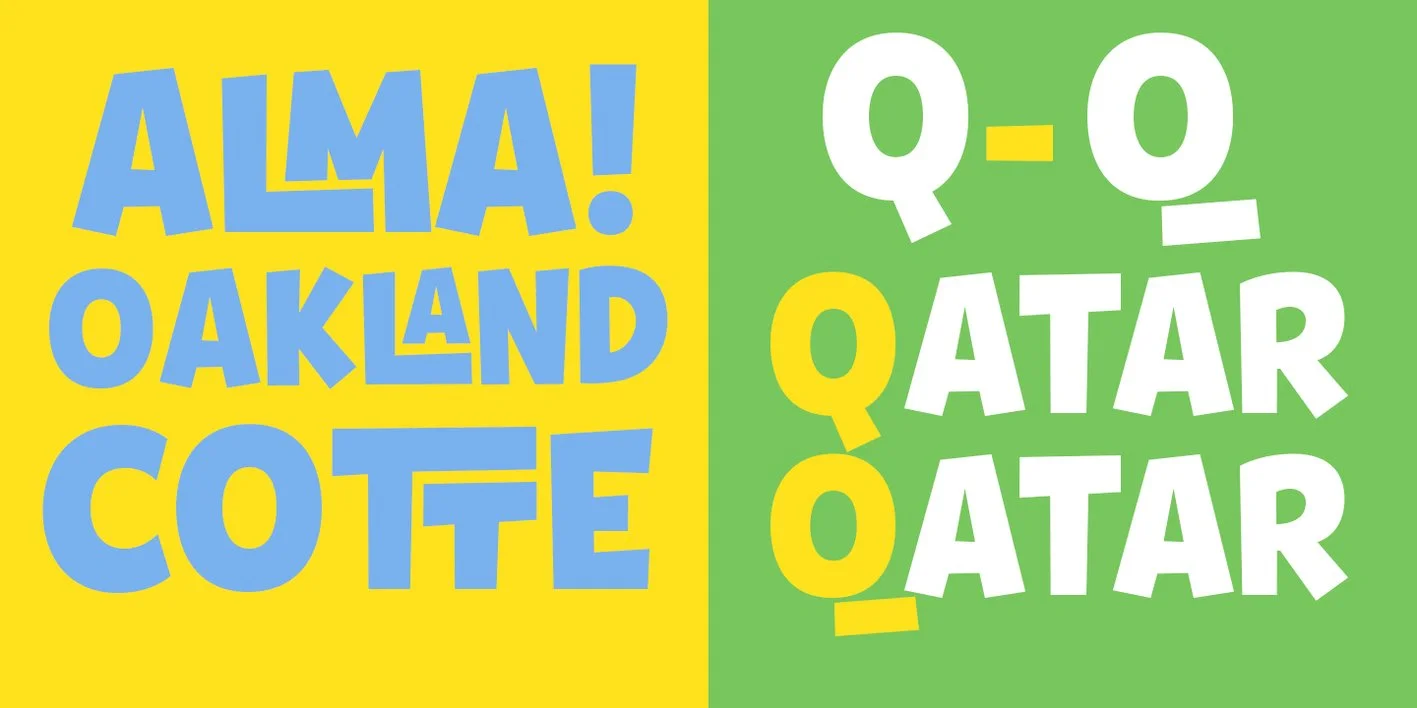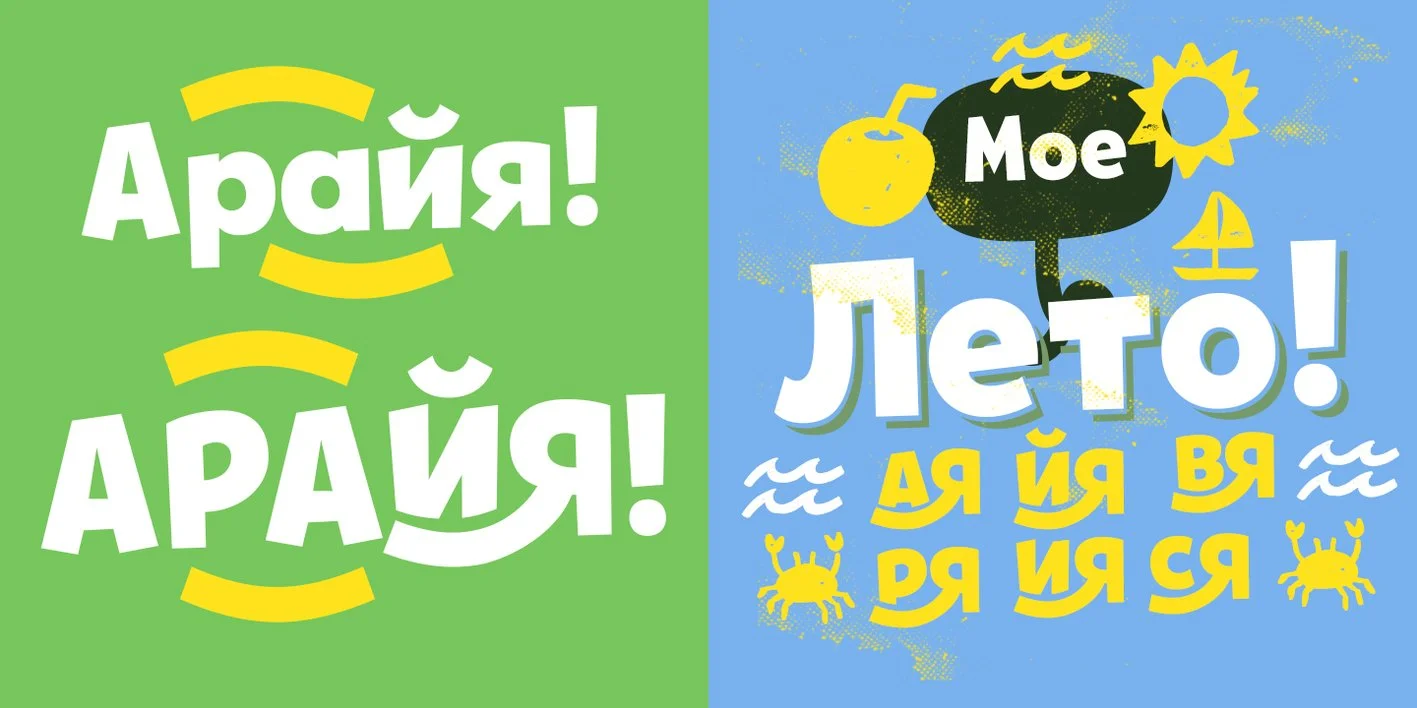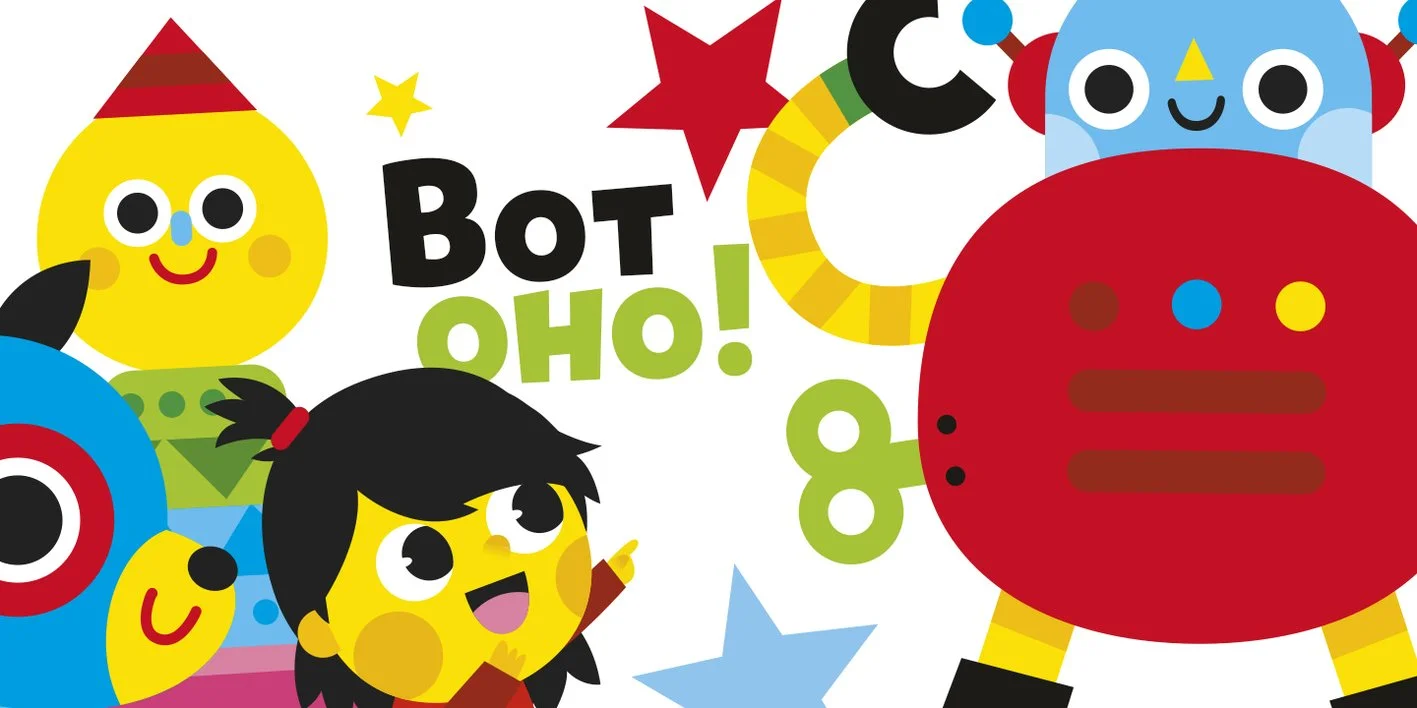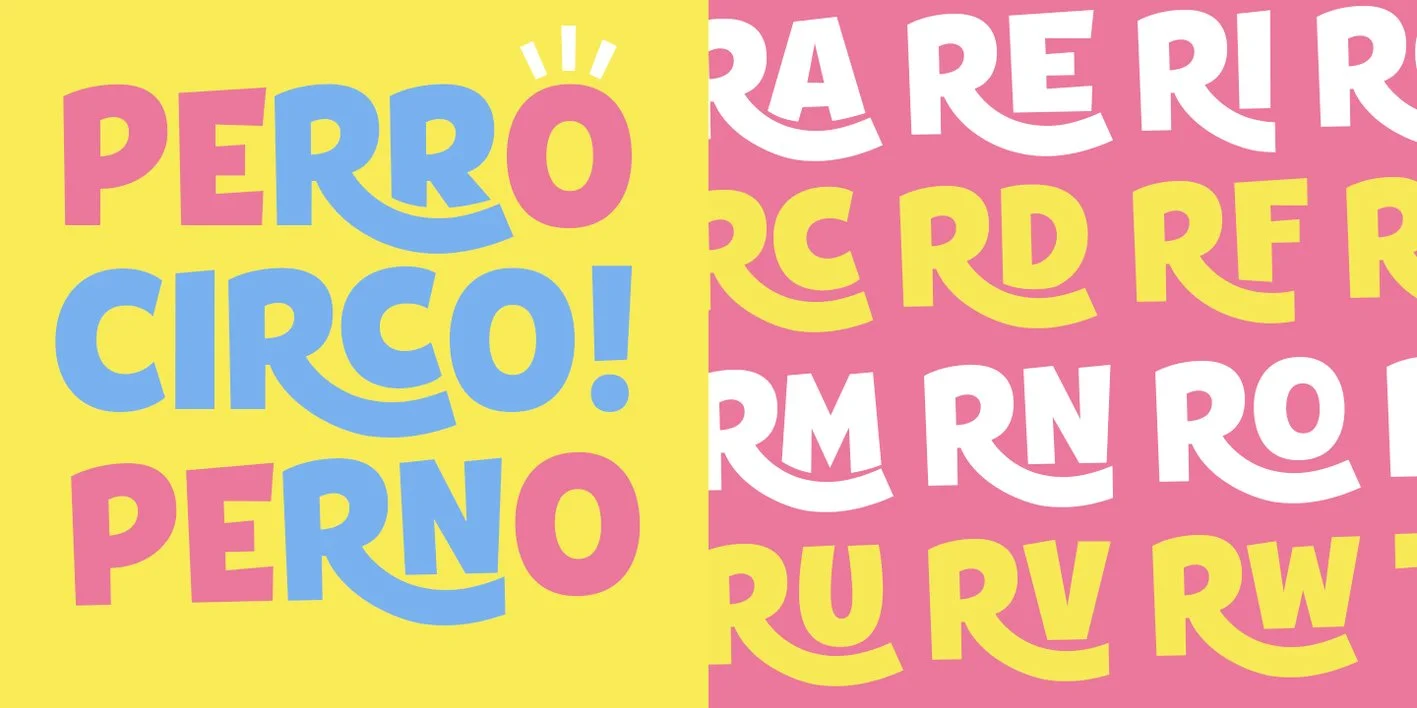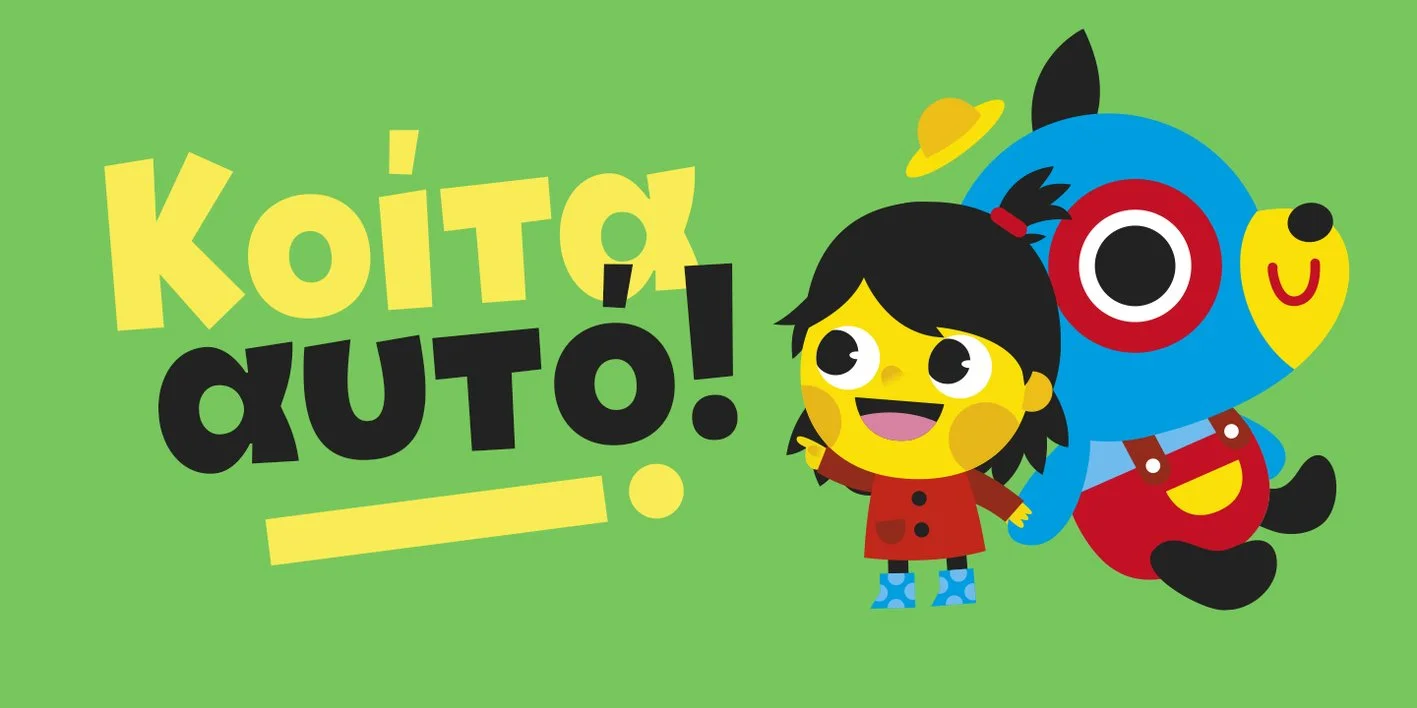
Tobi Greek Cyrillic Font
When a design brief calls for both controlled contrast that rewards close inspection and immediate visual impact, type choices matter — Tobi Greek Cyrillic answers that brief. The typeface brings a versatile sensibility to a broad range of creative disciplines, with distinctive character without sacrificing readability that holds up whether the work is print-first or screen-first.
In practice, Tobi Greek Cyrillic proves particularly effective for logo design, poster creation, web design, environmental graphics, packaging design. Designers reaching for it find that the type decisions feel resolved rather than laboured — a useful quality when client timelines are tight.
The range of applications extends to editorial layouts, signage systems, product labels, advertising campaigns. That breadth is deliberate: the proportions and spacing were stress-tested across a wide range of mock briefs before the typeface was finalised.
In-house creative teams at consumer brands find Tobi Greek Cyrillic a reliable choice for projects that demand both personality and restraint. The design avoids the self-conscious quirkiness that dates quickly, settling instead for considered distinctiveness that holds up over time.